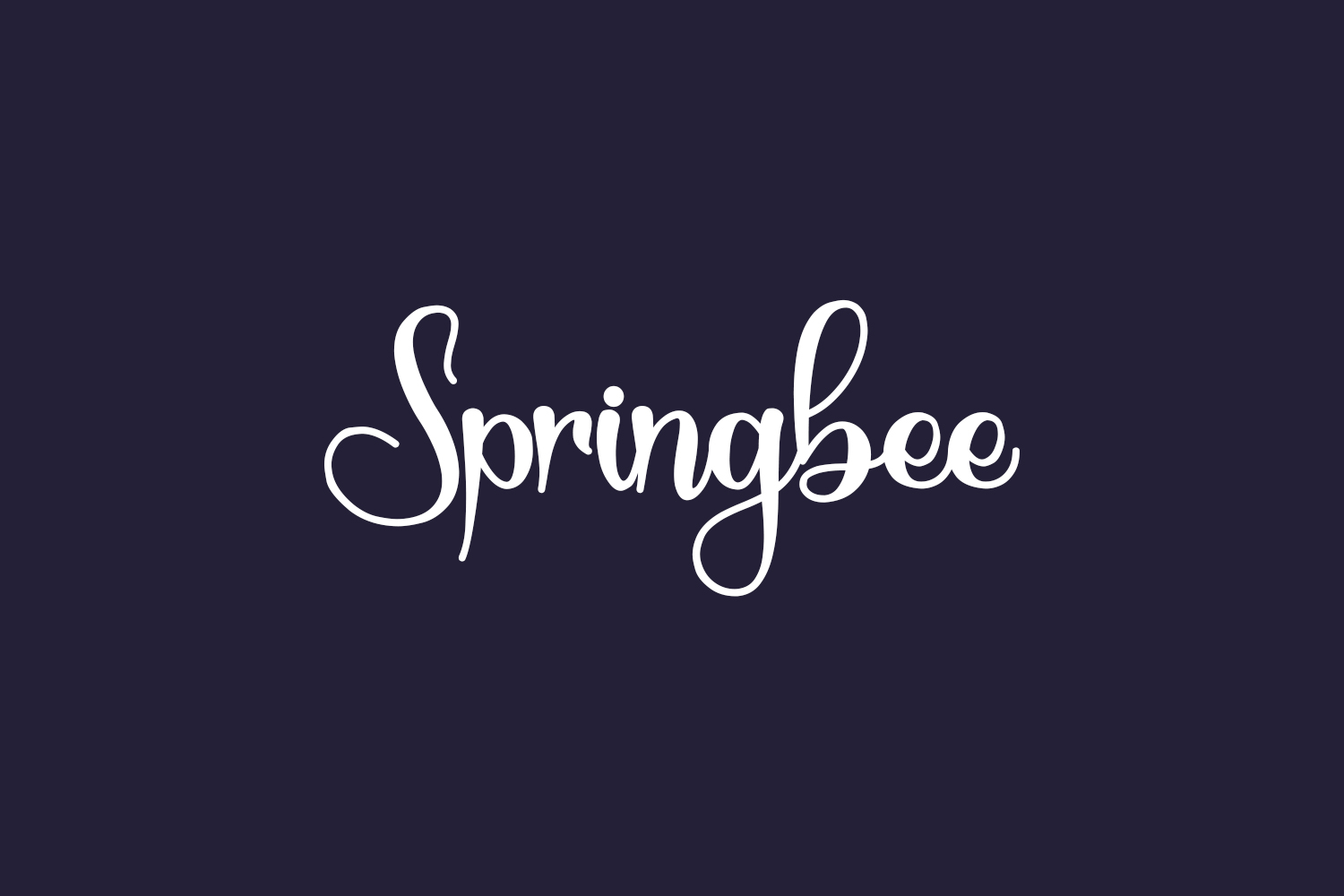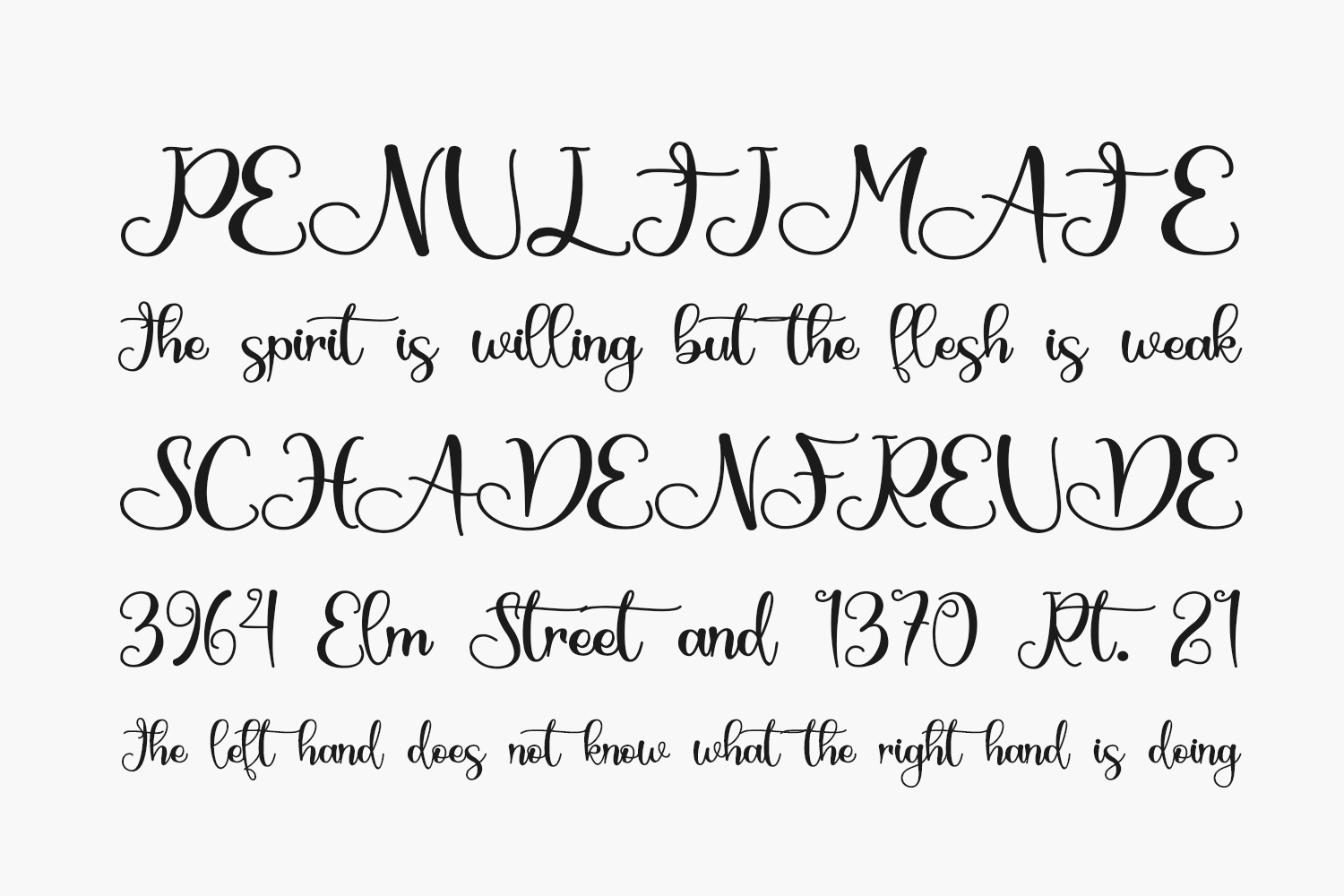
Springbee Free Font is a dazzling script font. This font is neatly crafted and highly detailed. Whatever the topic, this font will be a wonderful asset to your font library, as it has the potential to enhance any creation. Springbee Free Font was designed by Letterafa Studio and is free for personal use only. Please purchase the full version for commercial use.